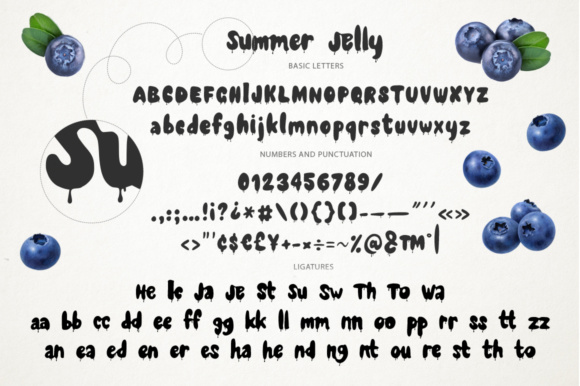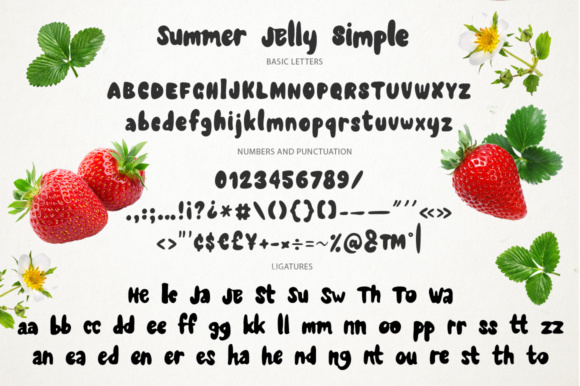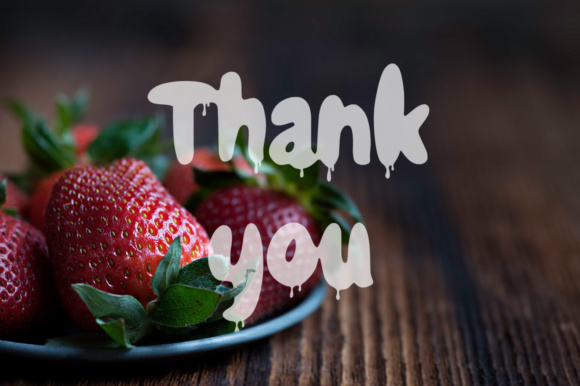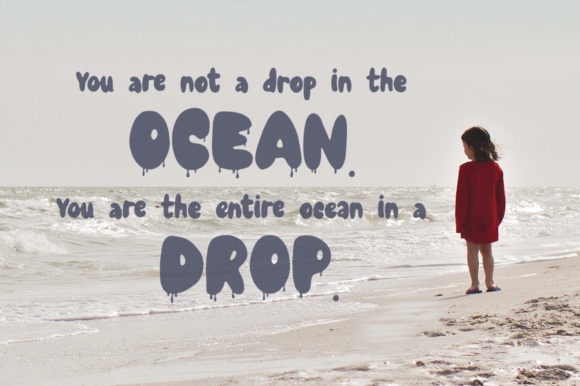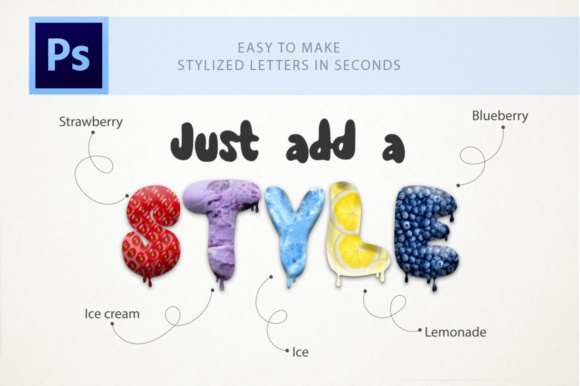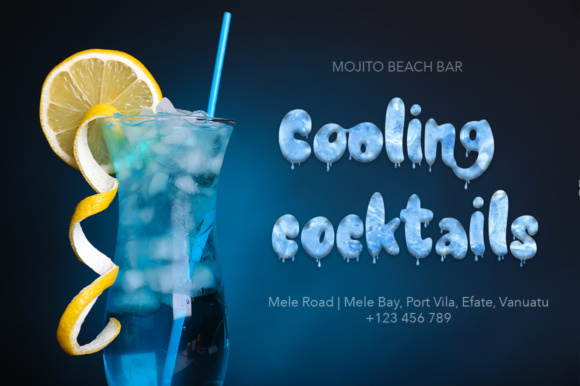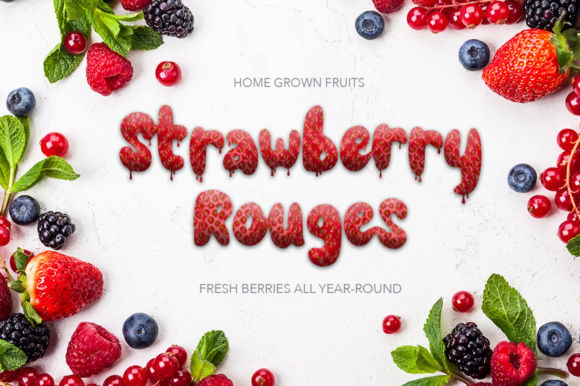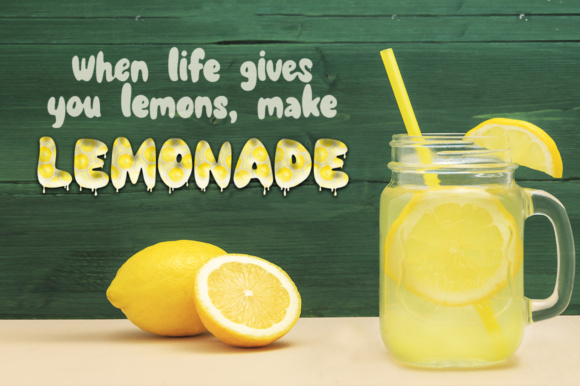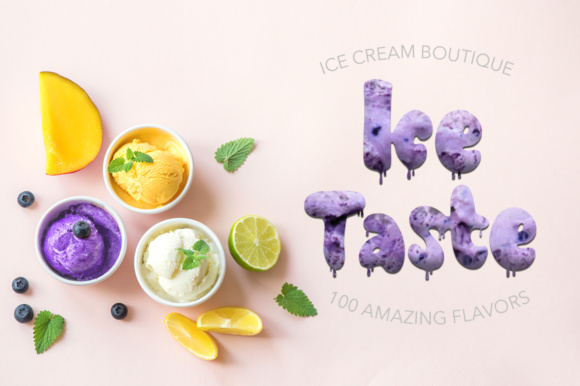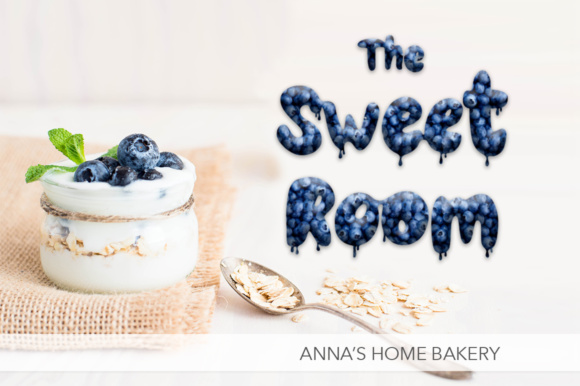
Summer Jelly Font
About Summer Jelly Font
Make this Summer one to remember! This font duo comes with tons of ligatures, style, and even Photoshop styles so you can create stunning and yummy designs!